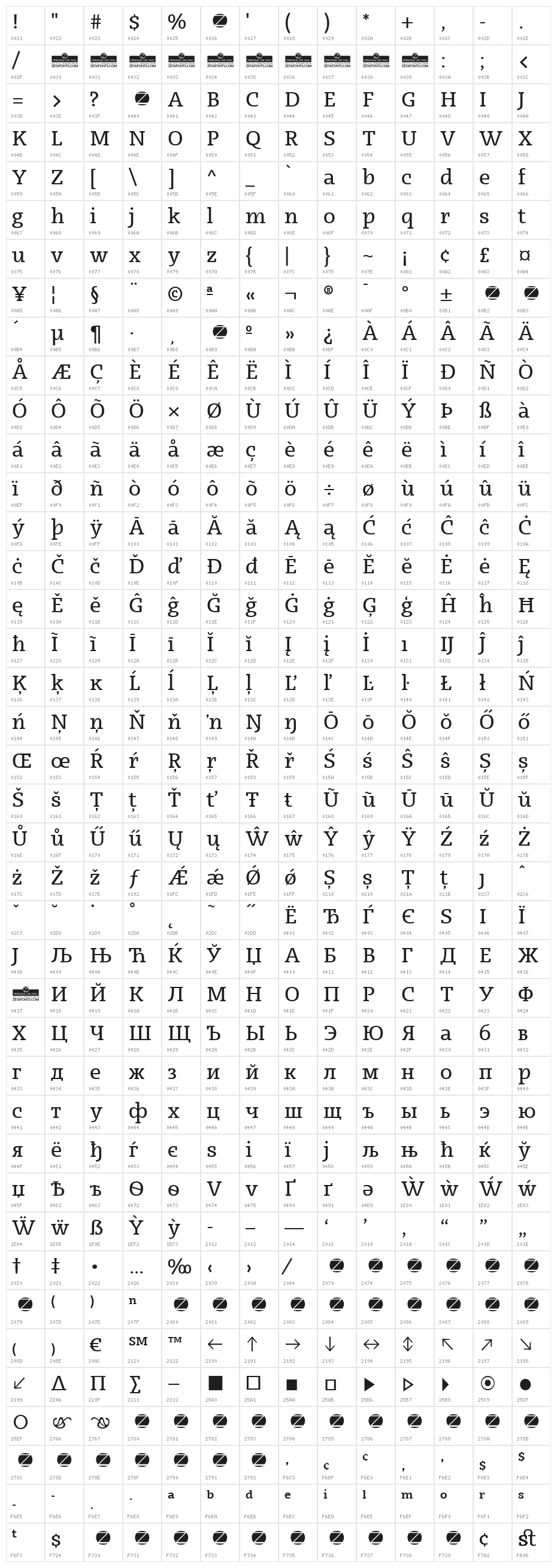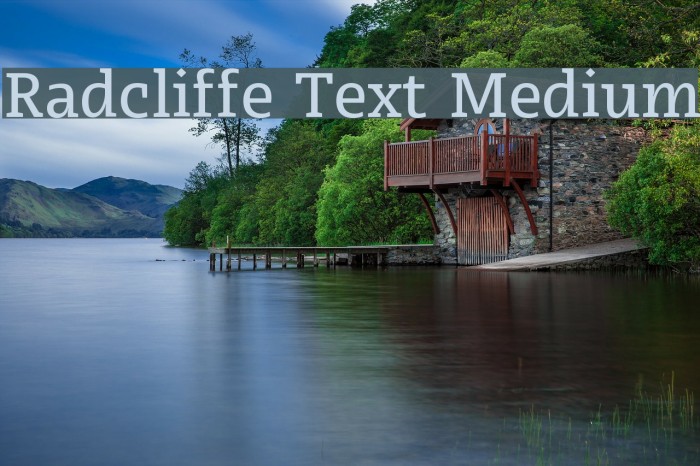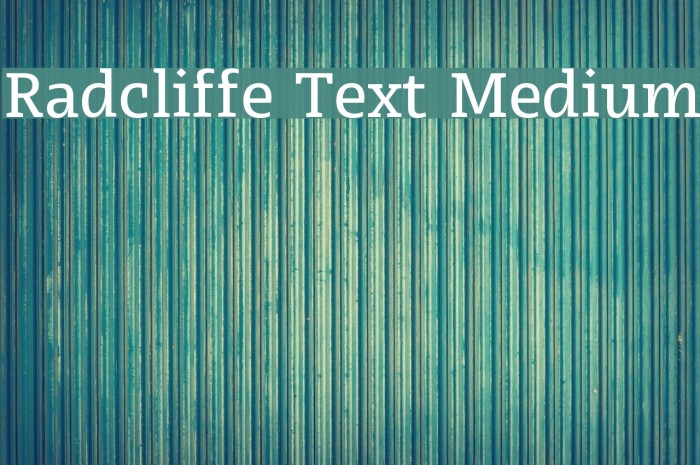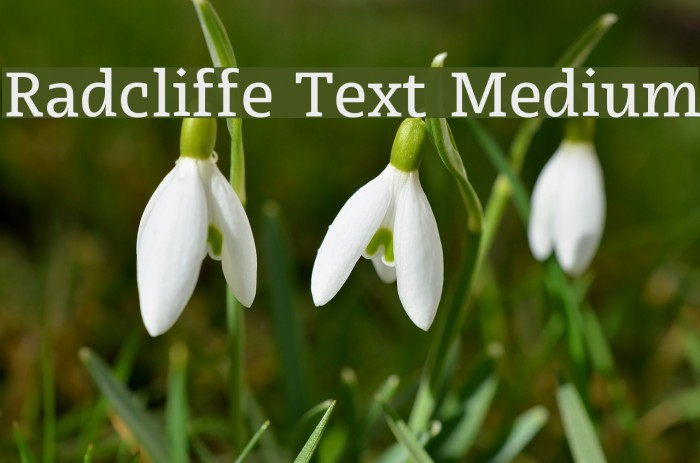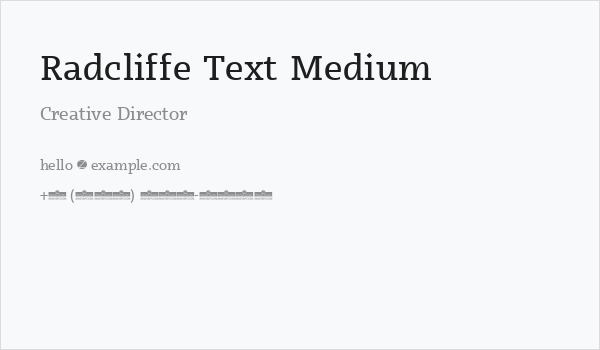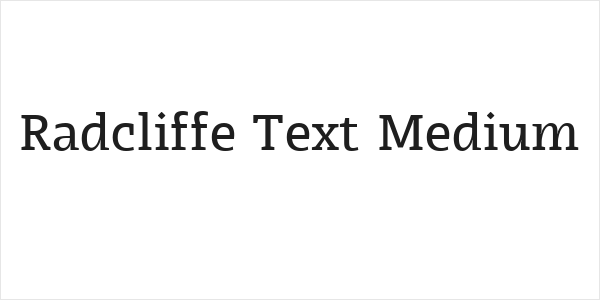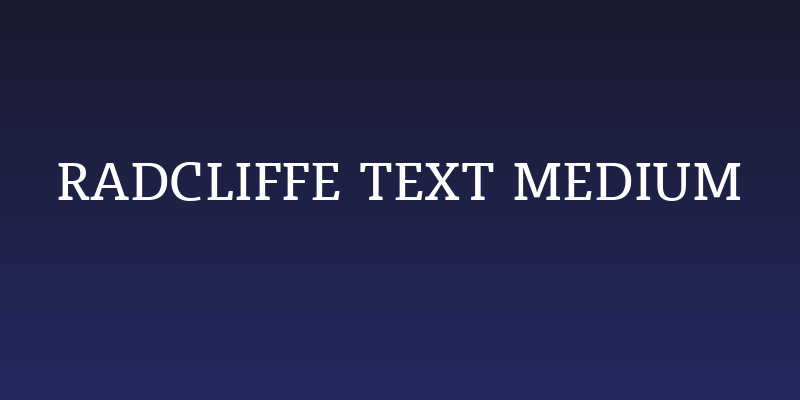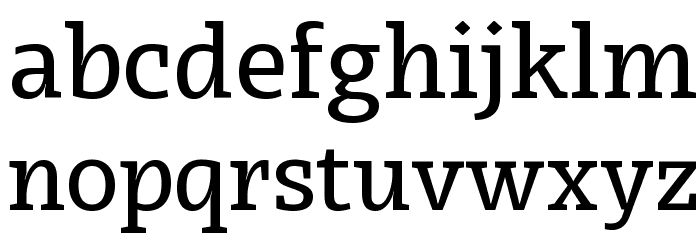
Radcliffe Text Medium Font
Radcliffe Text Medium Description
This font exhibits a classic serif style with a medium weight, providing a balanced and readable appearance. The serifs are pronounced yet not overly ornate, contributing to a traditional and authoritative look. The uppercase letters are bold and commanding, while the lowercase letters maintain a consistent height and width, ensuring legibility. The numerals are clear and distinct, matching the overall style of the alphabet. Special characters are well-integrated, maintaining the font's cohesive design. The spacing between characters is normal, allowing for comfortable reading in various applications.
| Use Case | Body text, Editorial design, Formal documents |
| Proposed Projects | Ideal for editorial design, book typesetting, formal invitations, and corporate branding. |